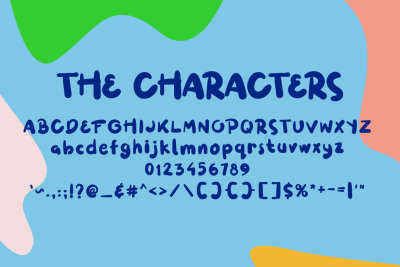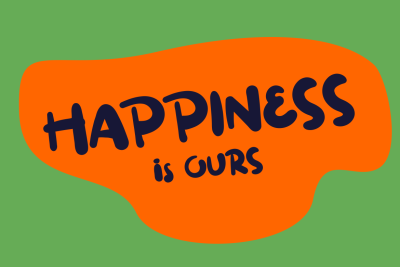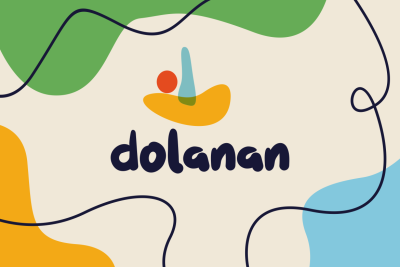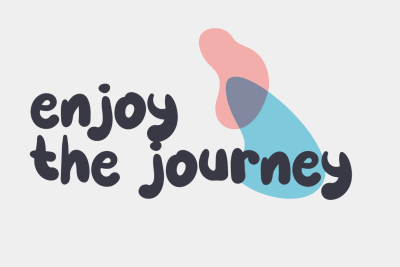
Funny Font Ginuks is a playful typeface that brings energy and personality to any design. With its bold, rounded shapes and friendly style, it instantly captures attention. Ginuks works well in various projects, from childrenโs books and playful branding to vibrant social media graphics. Therefore, this font is ideal for designs that need a lively touch, appealing to young audiences and anyone seeking a fresh, unique look.
Unlike traditional fonts, Funny Font Ginuks embraces fun with its soft, rounded letters, which create an inviting, approachable feel. The font combines readability with playfulness, making each word both clear and eye-catching. As a result, Ginuks helps creatives convey joy, warmth, and friendliness. Whether youโre designing for family-focused brands, educational content, or entertainment, Ginuks effectively communicates a vibrant message that resonates with viewers.
Perfect for Various Applications
Funny Font Ginuks is highly versatile, fitting well across both digital and print applications. For example, it shines in digital projects like social media posts, website banners, and ads, grabbing viewersโ attention with a cheerful tone. Additionally, in print, Ginuks enhances posters, flyers, packaging, and labels, adding a playful yet professional look. Consequently, its flexibility makes it a popular choice for designers who want to add fun without losing readability.
With its rounded, organic shapes, Ginuks feels friendly and approachable, making it perfect for brands targeting children, families, or casual audiences. Furthermore, the fontโs casual style allows for varied uses, from playful headings to fun product packaging, delivering joy and warmth that viewers will remember. Ginuks adds a unique, memorable flair, making your projects not only engaging but also fun.
Why Choose Funny Font Ginuks?
Choosingย Ginuks means adding both charm and functionality to your designs. Its inviting look draws the eye, while its readability ensures it works across various applications. Therefore, Ginuks suits designs for young audiences or brands looking to add a playful touch. It lets you showcase creativity while keeping a polished, professional finishโperfect for any creative project that needs a friendly feel.
Ginuks appeals to those seeking a modern, lighthearted typeface that boosts emotional appeal. With Funny Font Ginuks, youโre not just adding text; instead, youโre adding personality and style that make your designs stand out. Its adaptability across digital and print makes it a valuable asset for any designer looking to elevate their work.